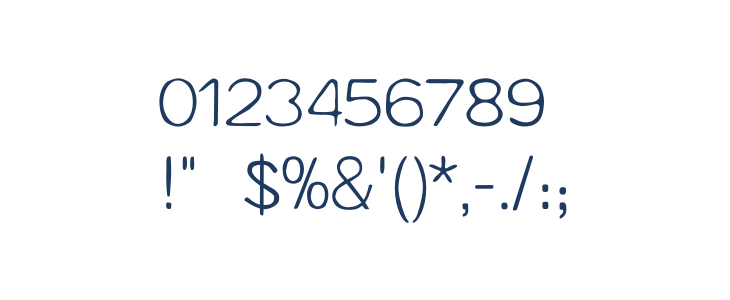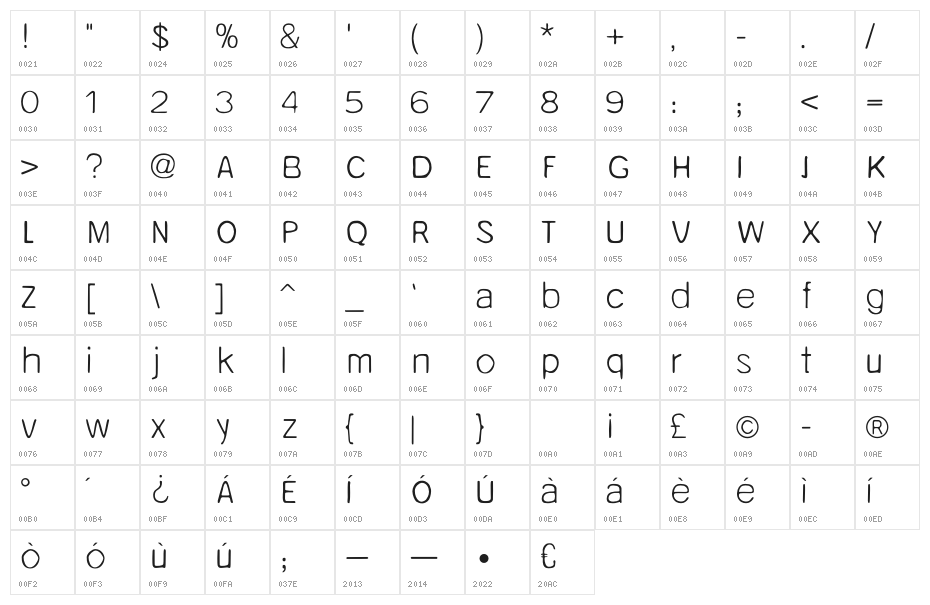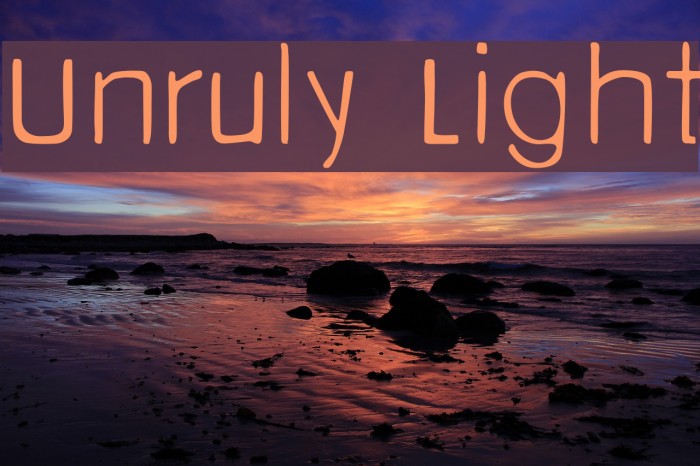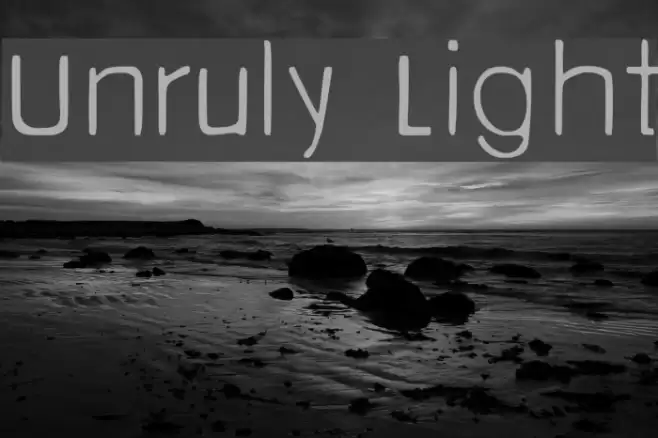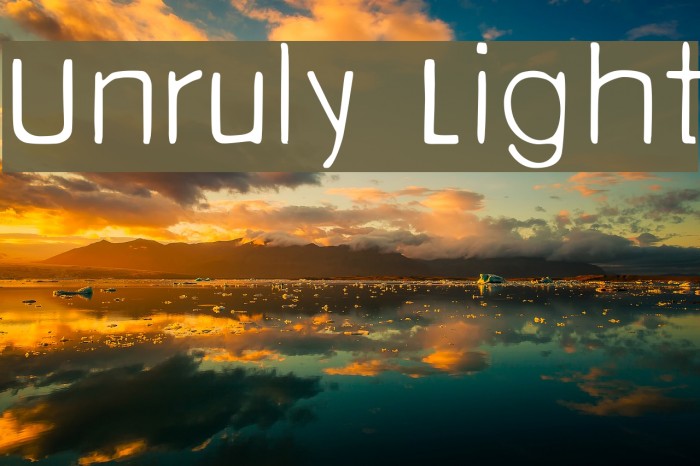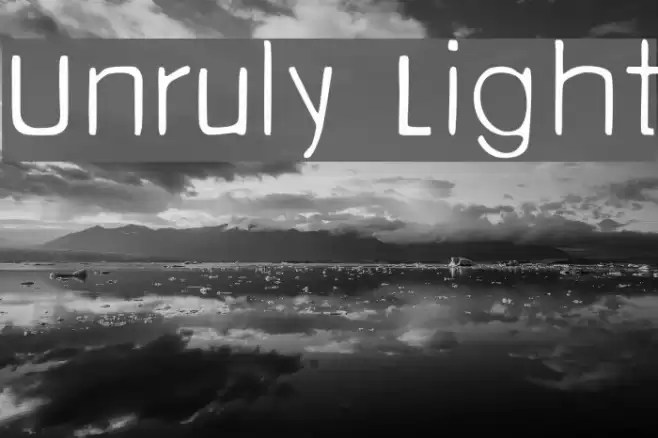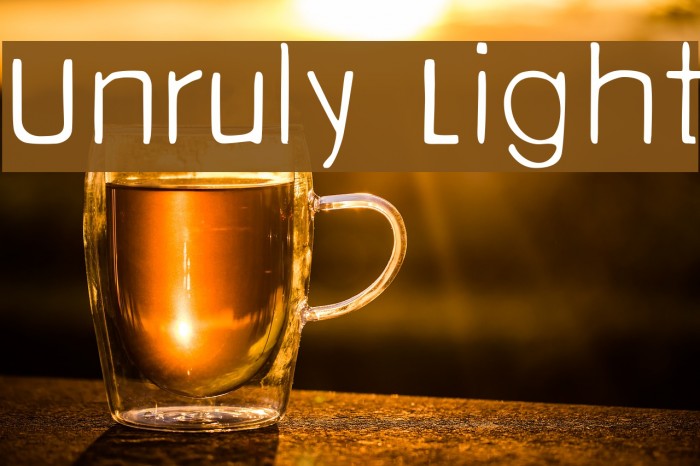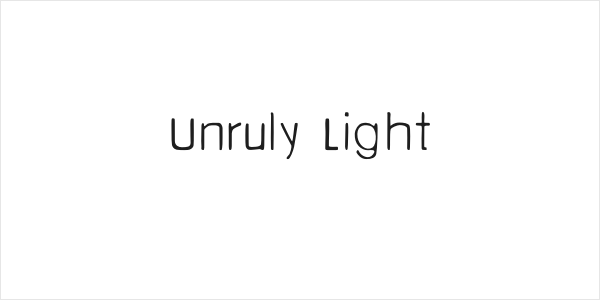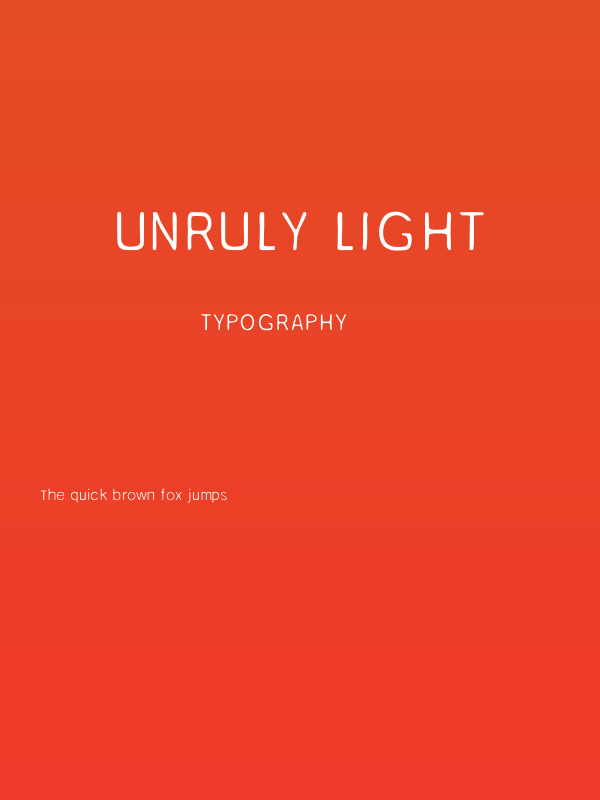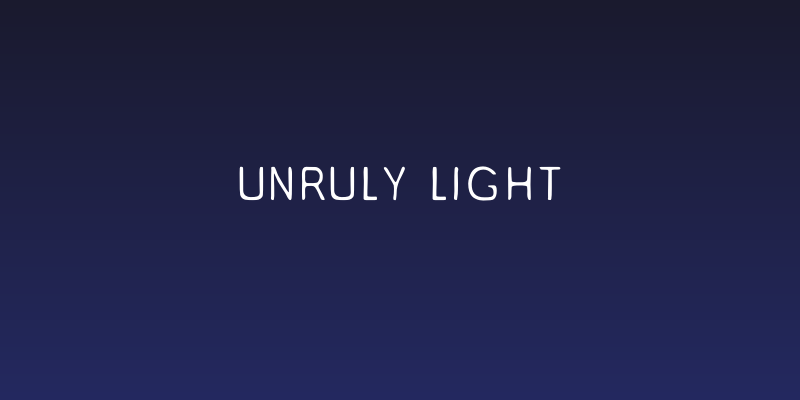
Unruly Light Font
Unruly Light Description
This font features a playful and informal style with a handwritten appearance. The characters are slightly irregular, giving it a whimsical and casual feel. The strokes are consistent in width, contributing to a uniform look despite the quirky design. The uppercase and lowercase letters maintain a cohesive style, with rounded edges and a friendly demeanor. The numerals and special characters follow the same playful theme, making this font suitable for creative and informal projects. Its unique charm makes it stand out, while still being legible and approachable.
| Proposed Projects | Ideal for children's books, greeting cards, casual branding, and playful posters. |